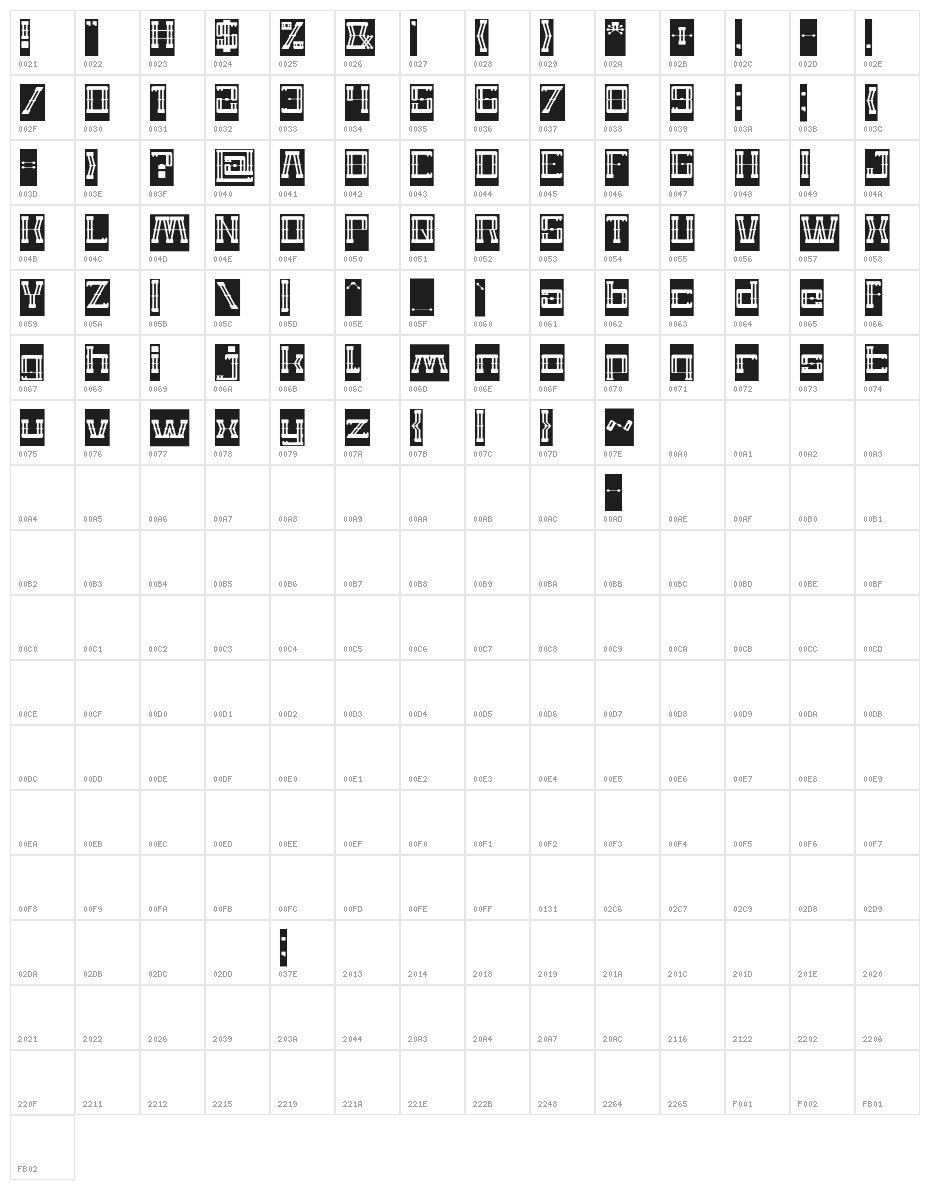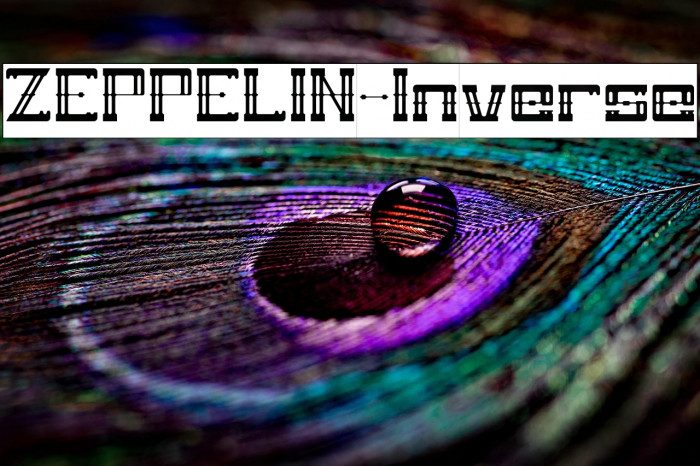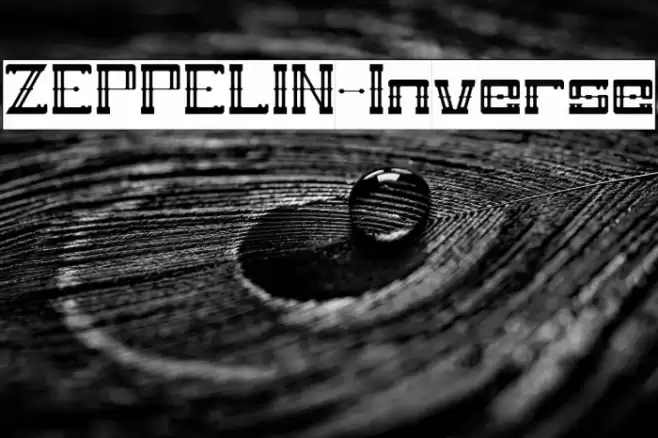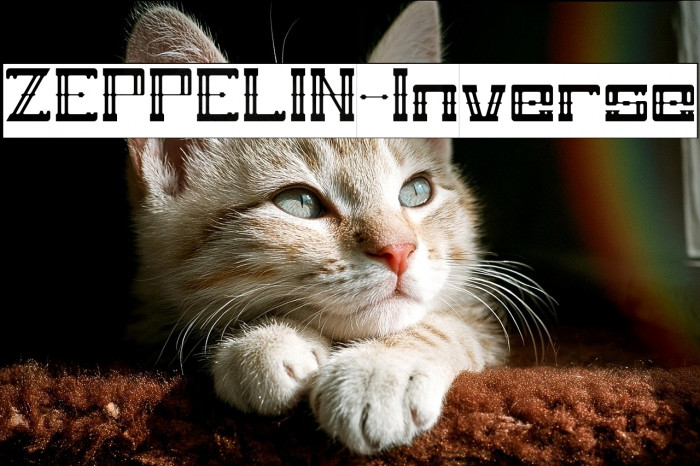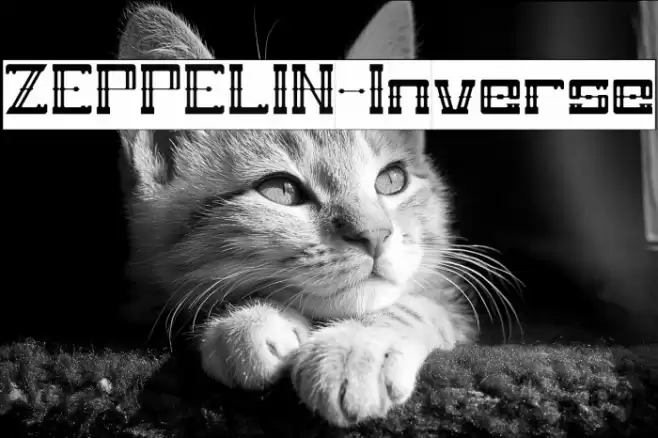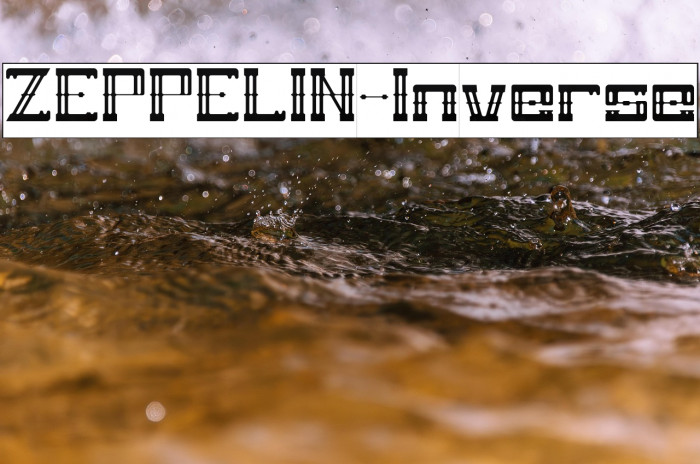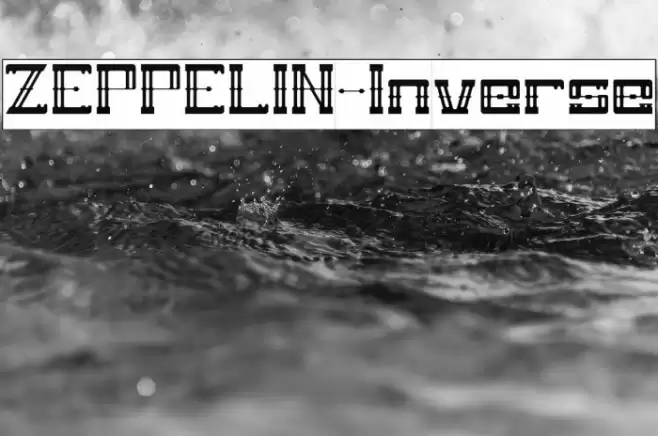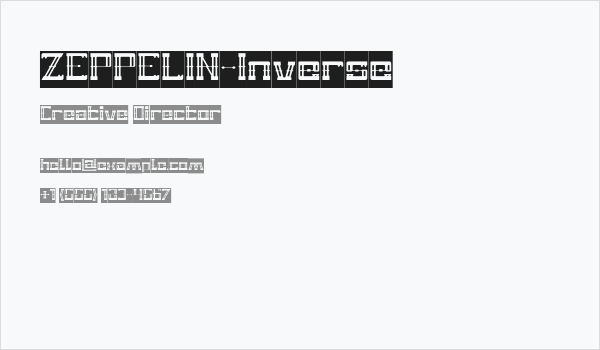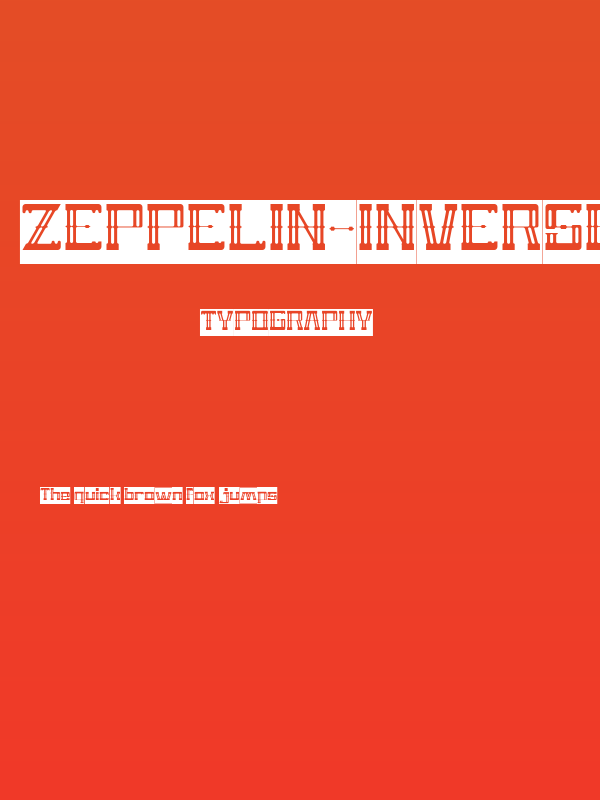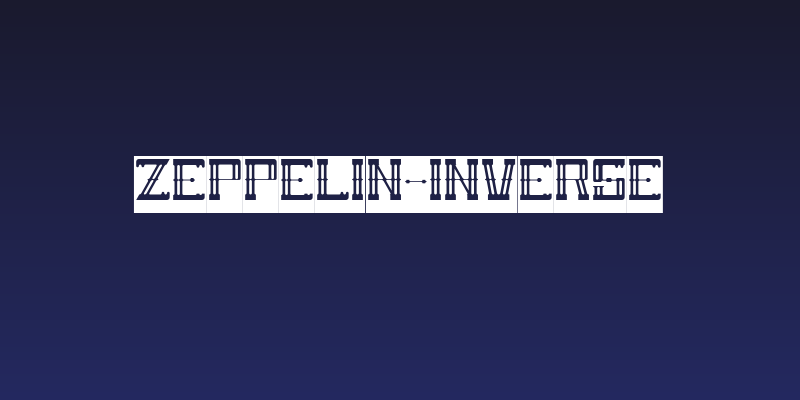
ZEPPELIN-Inverse Font
ZEPPELIN-Inverse Description
This font features a bold, industrial design with a distinct mechanical aesthetic. Each character is constructed with a combination of solid and outlined segments, creating a sense of depth and complexity. The uppercase and lowercase letters maintain a consistent style, with angular edges and geometric shapes. Numbers and special characters follow the same design principles, ensuring uniformity across the character set. The font's unique style makes it stand out, with a futuristic and technical feel that is both eye-catching and functional.
| Overall Style | Futuristic, Industrial |
| Proposed Projects | Ideal for projects requiring a strong, technical look such as tech branding, video game titles, or industrial-themed posters. |